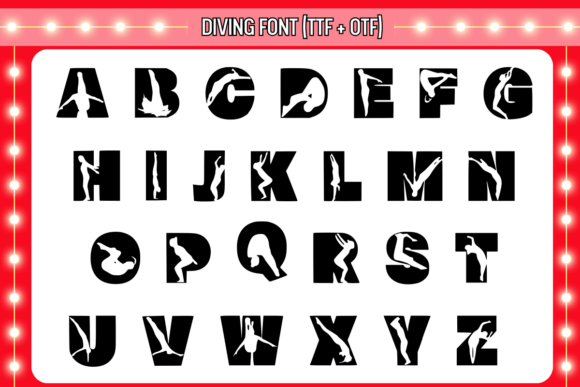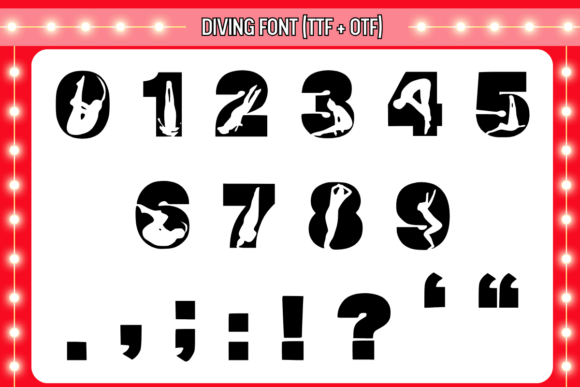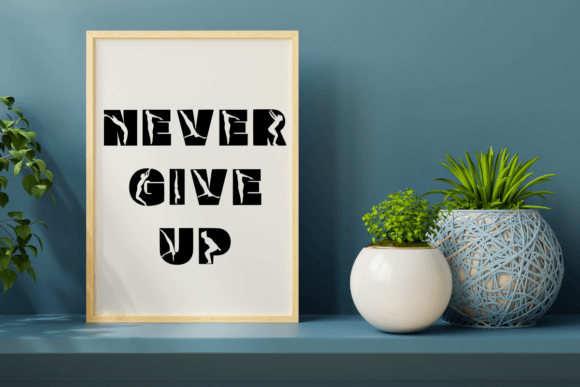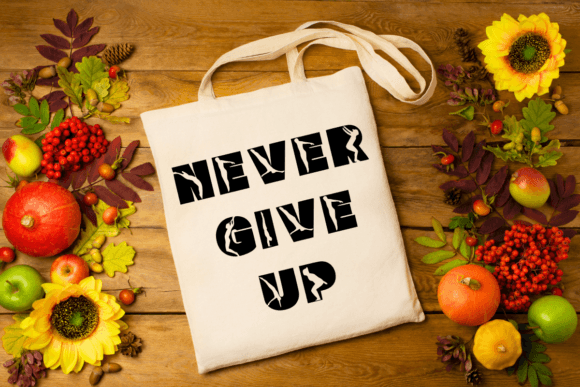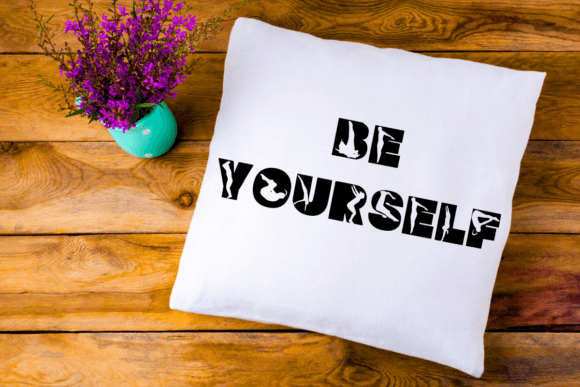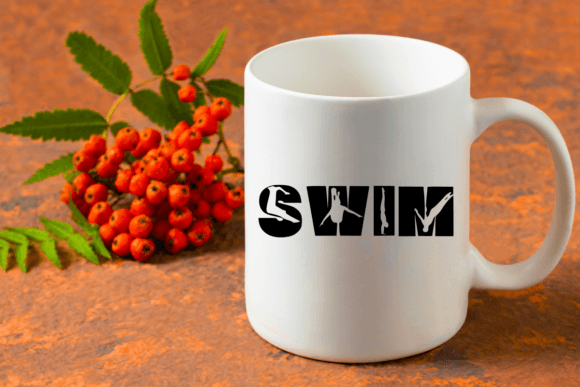
Diving Font: Add a Splash of Fun to Your Designs
Are you looking for a font that embodies playfulness and authenticity? Look no further than Diving Font! This cute and colorful decorative font is perfect for any children’s activity or school project. With its chunky lettered design, Diving Font is sure to make your designs come alive.
What is Diving Font?
Diving Font is a unique and eye-catching font that is designed to add a touch of fun and playfulness to your designs. Its colorful and chunky lettered design makes it perfect for use in children’s books, school projects, and other kid-friendly activities. The font’s playful and authentic feel makes it an excellent choice for designers and crafters who want to add a personal touch to their work.
Key Features of Diving Font
- Playful and Authentic: Diving Font embodies playfulness and authenticity, making it perfect for use in children’s activities and school projects.
- Cute and Colorful: The font’s cute and colorful design makes it sure to grab attention and add a touch of fun to your designs.
- Chunky Lettered: The font’s chunky lettered design makes it easy to read and adds a playful touch to your designs.
- Versatile: Diving Font can be used in a variety of designs, from children’s books to school projects and more.
Why Use Diving Font?
There are many reasons why designers and crafters love using Diving Font. Here are just a few:
- Adds a Personal Touch: Diving Font adds a personal touch to your designs, making them more engaging and fun.
- Perfect for Kids: The font’s playful and authentic feel makes it perfect for use in children’s activities and school projects.
- Easy to Read: The font’s chunky lettered design makes it easy to read, even for young children.
- Versatile: Diving Font can be used in a variety of designs, from digital to print.
Design Ideas Using Diving Font
- Children’s Books: Use Diving Font to create fun and engaging children’s books that kids will love.
- School Projects: Add a personal touch to school projects with Diving Font’s playful and authentic feel.
- Party Invitations: Use Diving Font to create fun and colorful party invitations that kids will love.
- Crafting Projects: Add a touch of fun to your crafting projects with Diving Font’s chunky lettered design.
Diving Font is a fun and playful decorative font that is perfect for designers and crafters who want to add a personal touch to their work. With its cute and colorful design, chunky lettered feel, and versatile use, Diving Font is sure to make your designs come alive. So why wait? Download Diving Font today and start adding a splash of fun to your designs!